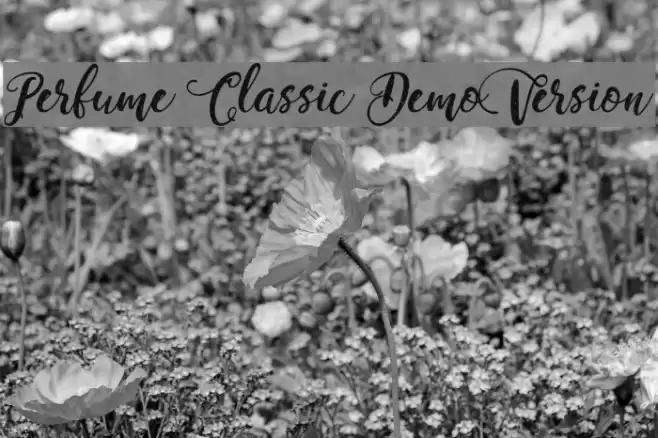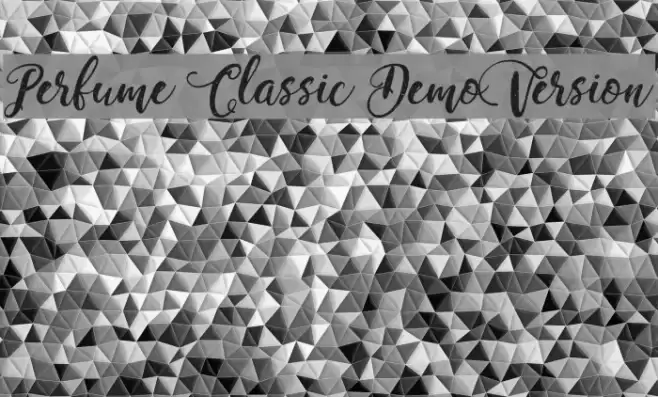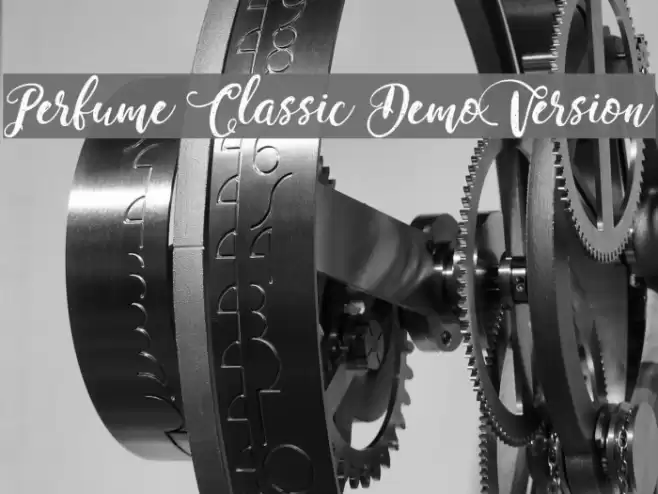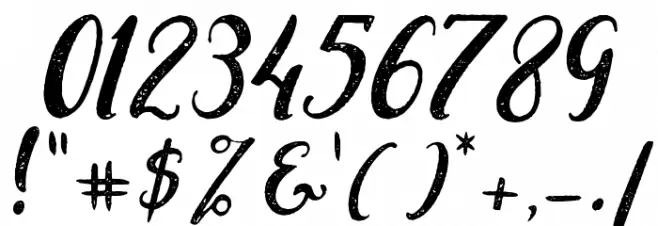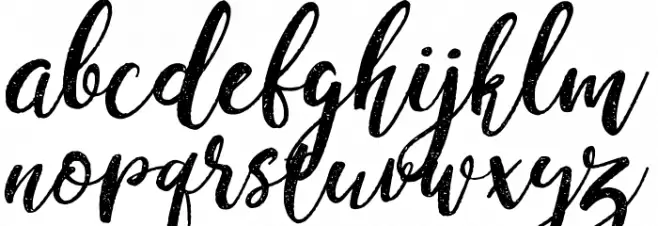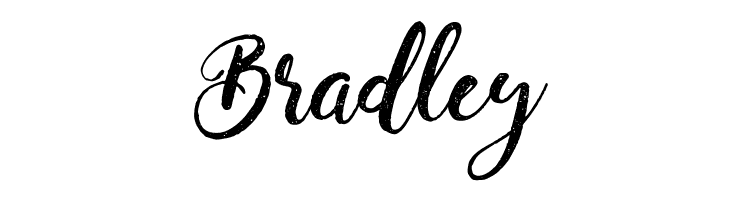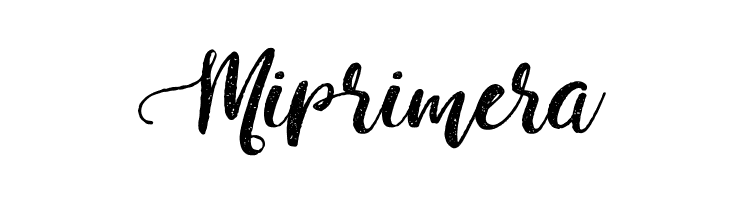
Perfume Classic Demo Version Font
Perfume Classic Demo Version Description
This font features a stylish and elegant script design with a handwritten feel. The uppercase letters are characterized by flowing curves and loops, giving a sense of sophistication and grace. The lowercase letters maintain a consistent style, with smooth transitions and a slightly slanted orientation. The numbers are bold and clear, matching the overall aesthetic. Special characters are creatively integrated, adding to the font's versatility. The texture appears slightly distressed, adding a vintage touch to the modern script style.
An elegant, handwritten script font with a vintage, distressed texture from Uncategorized fonts.
- Proposed Projects: Ideal for wedding invitations, branding, greeting cards, and elegant packaging designs.
- Overall Style: Vintage
- Use Case: Logos, Invitations, Branding